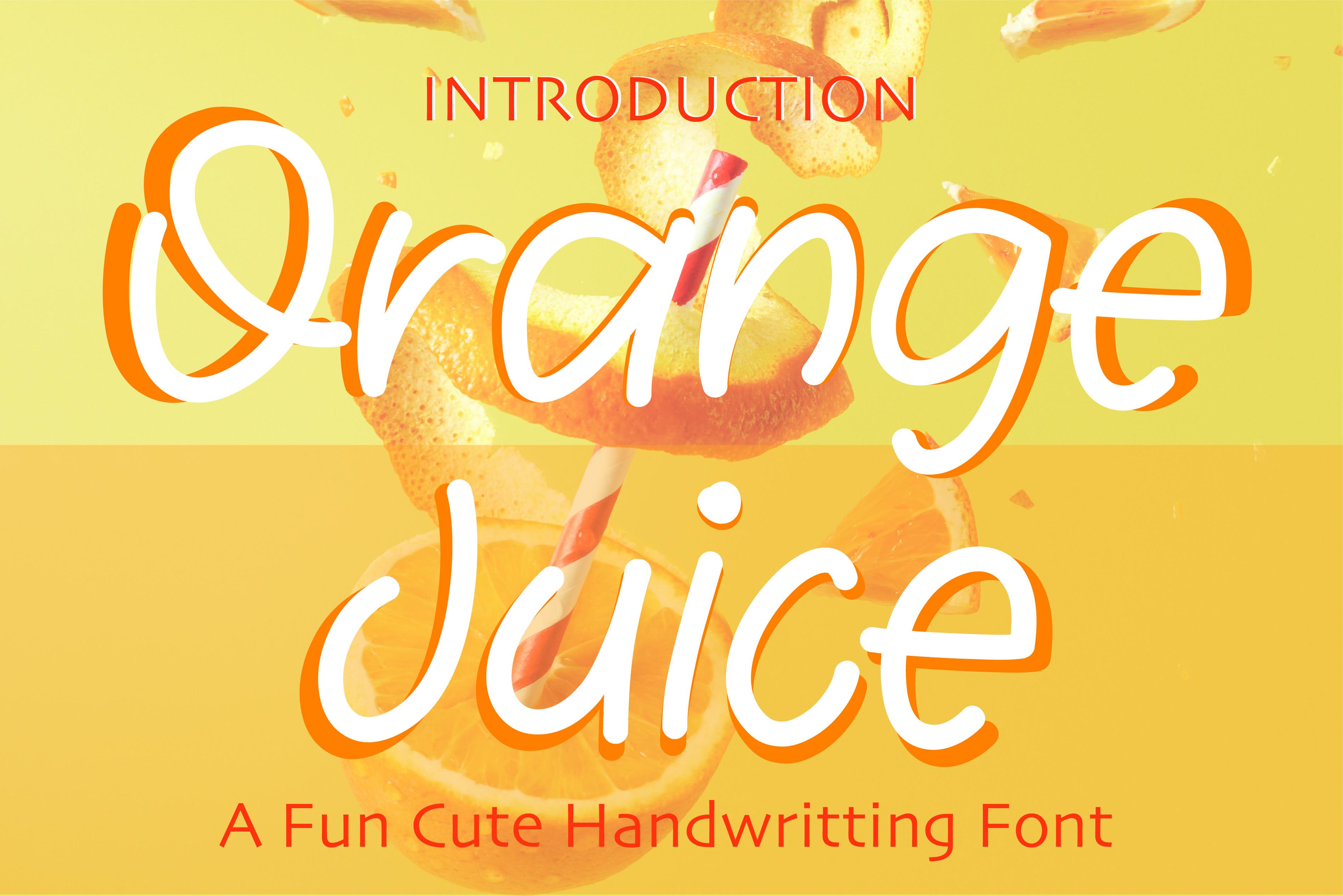
Orange Juice Font Description
Orange Juice is a cute and playful handwritten font. Whether you are using it for cartoon-related designs, children games, quotes, titles, brand names, book covers, posters, or just any creation that requires a touch of joy, this font is a great choice.